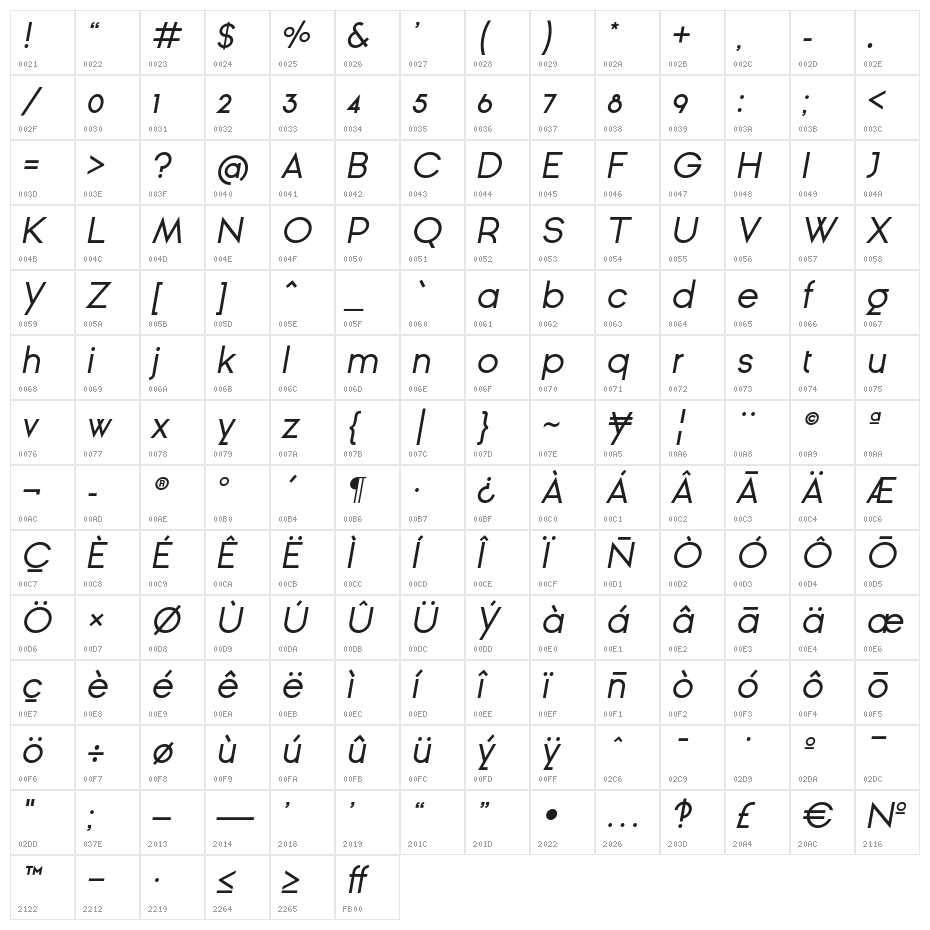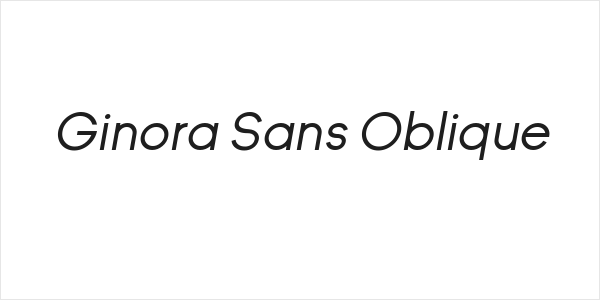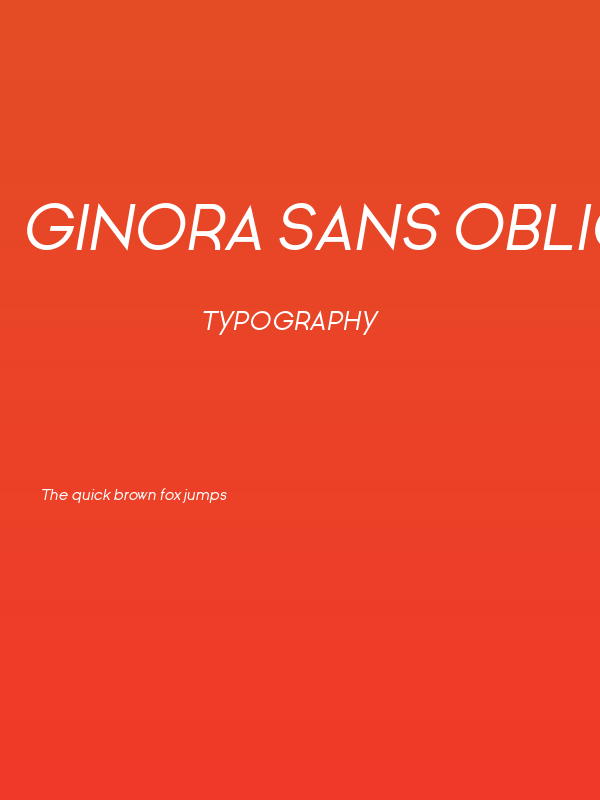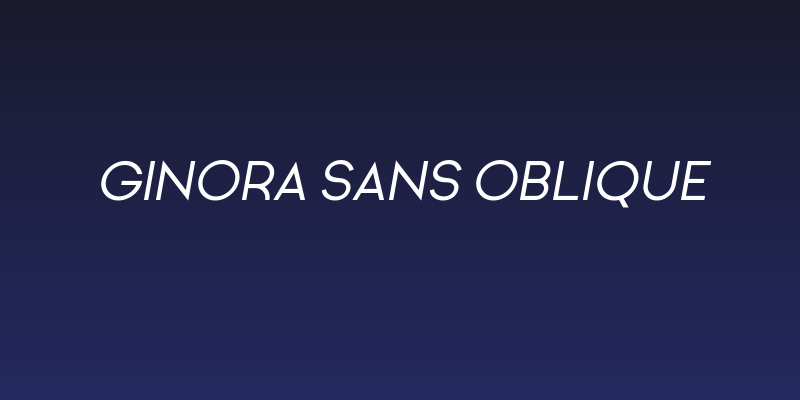
Ginora Sans Oblique Font
Ginora Sans Oblique Description
This font exhibits a sleek and modern sans-serif style with a distinct oblique slant, giving it a dynamic and forward-leaning appearance. The characters are clean and geometric, with consistent stroke widths that contribute to a uniform and professional look. The uppercase letters are bold and commanding, while the lowercase letters maintain a smooth and approachable feel. The numerals are clear and easy to read, making them suitable for various applications. Special characters are well-integrated, maintaining the overall aesthetic of the font. The spacing between characters is balanced, ensuring readability without sacrificing style.
| Use Case | Headlines, Logos, Digital Interfaces |
| Proposed Projects | Ideal for branding, advertising, and digital interfaces where a modern and dynamic look is desired. |